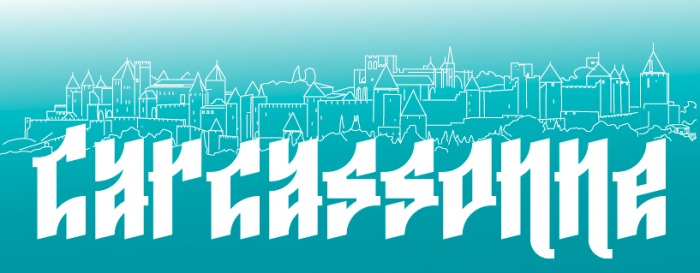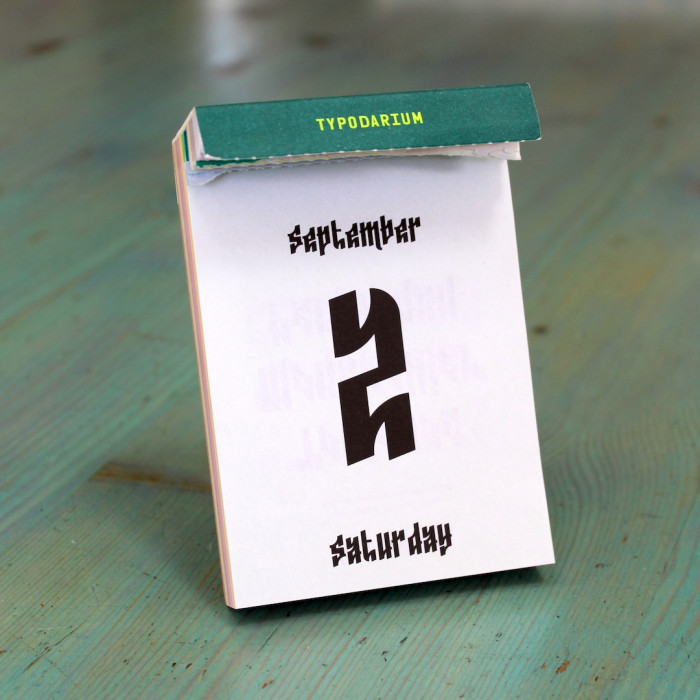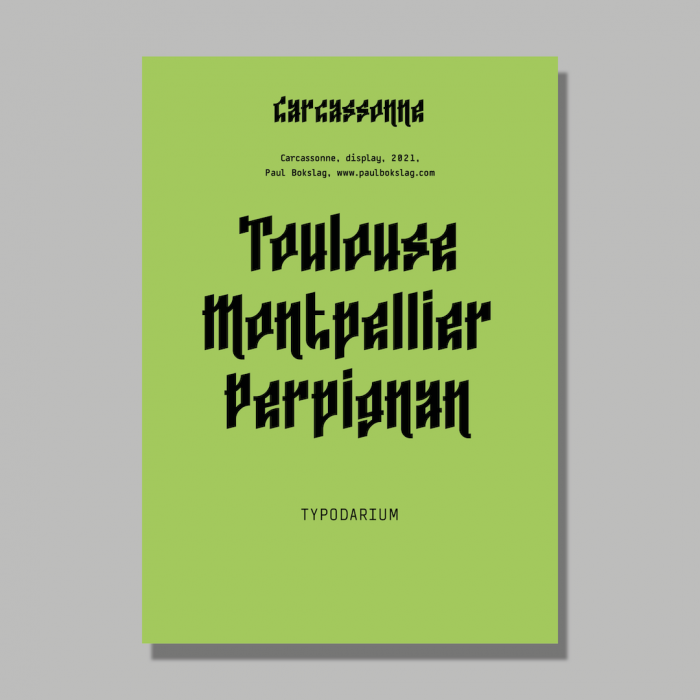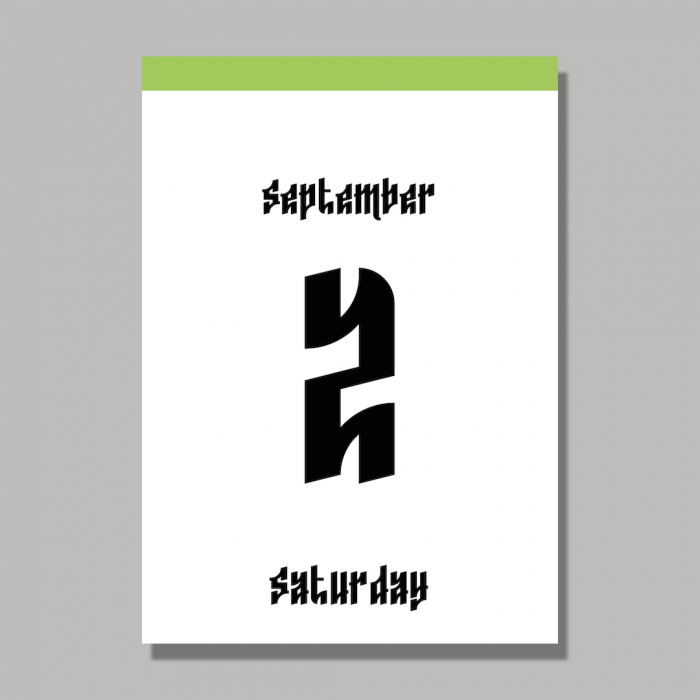
Fantastic glyphs here! I'm in love especially with the "a" and the general fresh mouvement of the font. It seems very calligraphic, like made with a biselated marker. And very readable. Congrats, compa. Good luck with the jury (I'm not doubt of your success).
Your clever blending of two differing designs continues to prove quite impressive and eye-catching
Nice sample.
looks like a graffiti font. very nice
Very cool looking mockups displaying the font mate.
Congrats, compa! @Sed4tives: Seeing the fonts of four in the Typodarium is not strange. I would bet double against single that they are real.
@elmo: Well, in general with four you'll never know if it is in fact a 'real world' physical application, but these clearly show tell tale givaways that they are indeed digital mockups.
Shadows, lighting and edges for example..
Maybe the Typodarium tear-off calender is a printed medium, its harder to tell, still I tend to say that it is a digital mockup though.
@Sed4tives - Over the years, it's not been uncommon to see some of our fellow FontStructors represented in desk calendars and sample books displaying their work.
Thanks guys, you are all correct. The first photo is the actual Typodarium 2023. The other two images are 'mockups' based on the original files submitted. I have two more fonts in the calendar. I'll post them now.